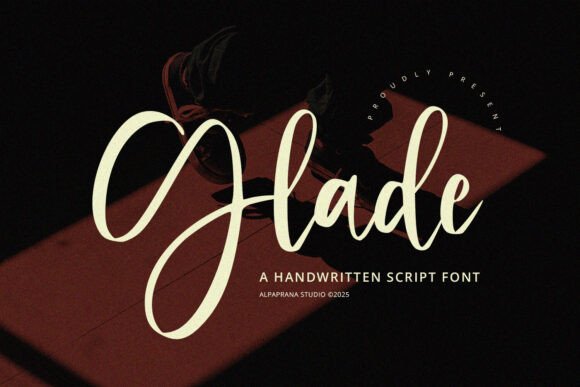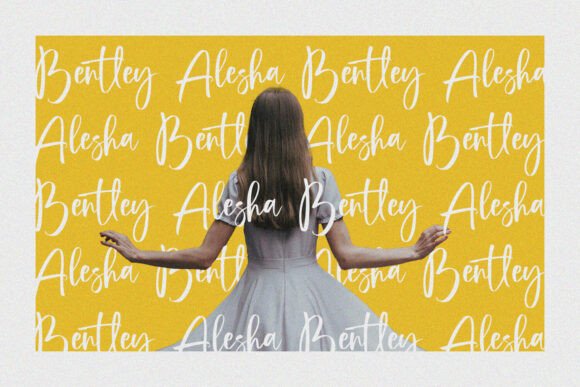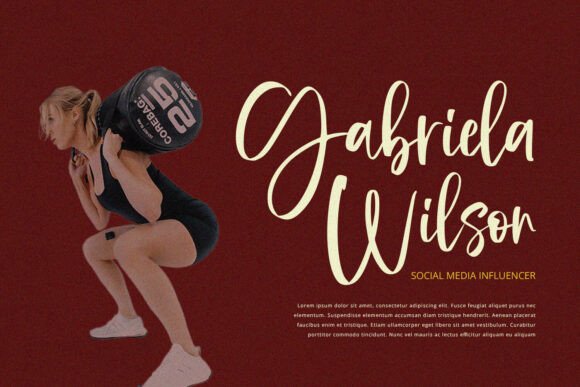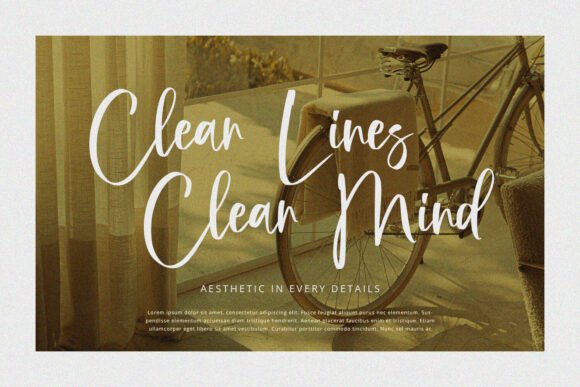
Glade Font: Modern Handwritten Script for Chic Branding & Logo Design
About the Glade Font
Introducing the Glade Font, a beautifully crafted typeface designed to elevate your creative projects. Glade is a handwritten script font with chic and modern feels. It will be perfectly used for magazine, packaging, posters, shopping bags, t-shirts, book covers, photography, special events and other design projects.
Glade’s elegant yet modern feel makes it ideal for headlines, short text blocks on packaging, and stylish branding elements. It works particularly well for projects emphasizing a sophisticated and approachable aesthetic, such as high-end fashion, beauty products, or boutique hotels. Avoid using Glade for body copy or UI elements; its script nature is less legible in extended text.
Pairing Glade successfully depends on the desired effect. For a balanced contrast, consider pairing it with a clean sans-serif like Lato or Open Sans for body text. A geometric sans-serif like Futura would create a more modern, high-fashion look. If a warmer feel is needed, a classic serif like Garamond could complement its curves.
Glade projects an overall air of chic modernity and approachability. Its personality is sophisticated but not overly serious, making it suitable for brands wanting to communicate both style and approachability.